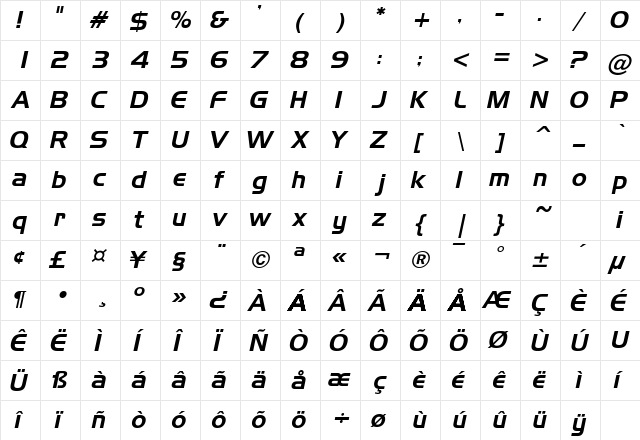
Aero Italic
Design Context for Aero Typeface
Aero takes a measured approach to typography — its balanced proportions and neutral character make it a reliable workhorse for both digital and print work. Its italic angle brings a sense of urgency and motion to the letterforms.
Pro Tip: Use Aero for emphasis, pull quotes, and subheadings where its slanted energy can add rhythm to the layout.